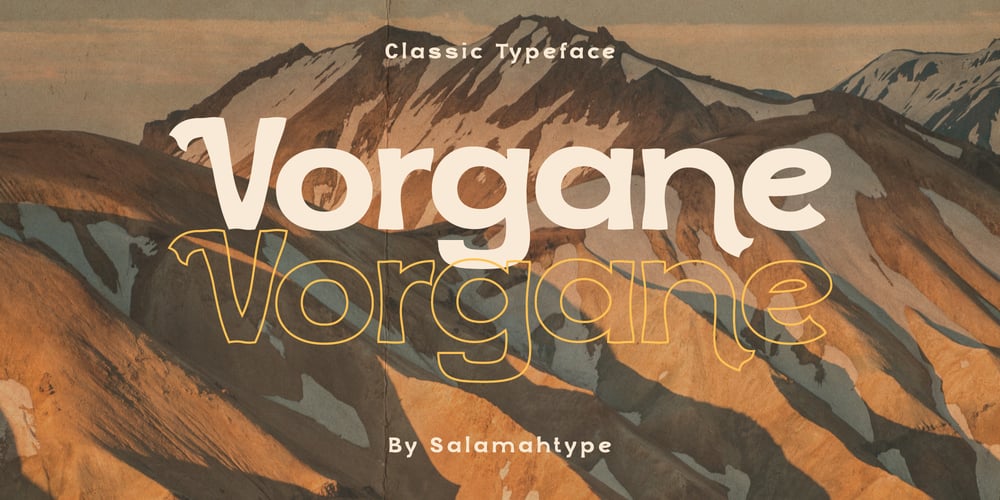
Vorgane Font Family was designed by Aswangga Sadike and published by Salamahtype. Vorgane contains 1 styles and family package options. Introducing our font called “Vorgane” – a vintage typeface in classic style and also has ligatures and alternates. This font is perfect for websites, logos, product packaging, branding projects, product designs, label and more.Features : Uppercase & lowercase Punctuation & symbol Ligatures Alternates PUA Encoded Multilingual characters